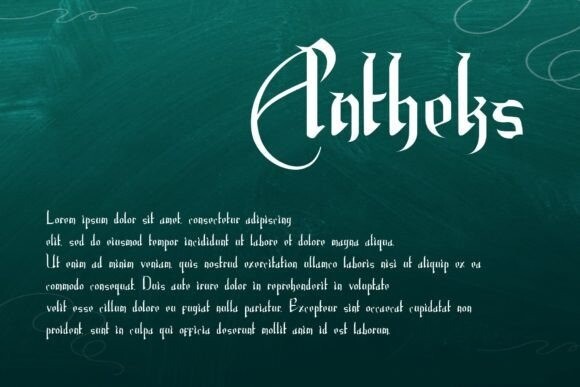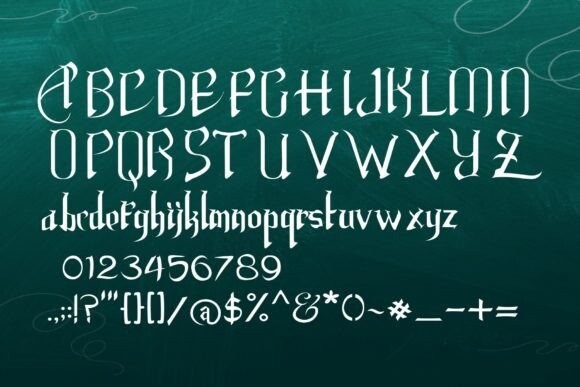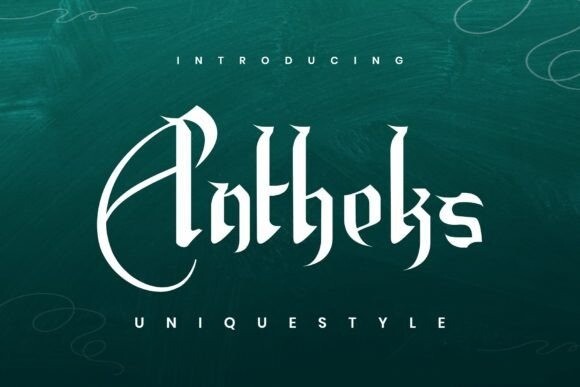
Antheks – Unique Font
Introducing **Antheks**, a unique elegant serif font with vintage style.
So perfect for you who needs a typeface for logo designs, magazine, social media, brochure, and many more.